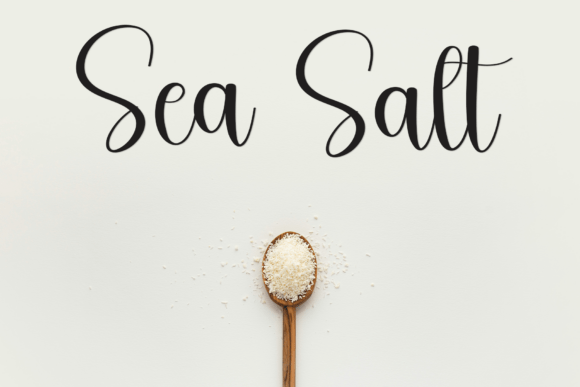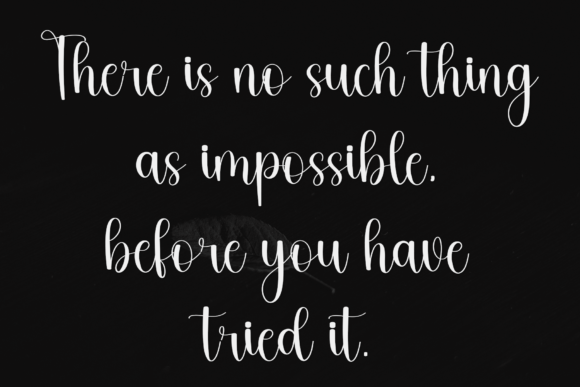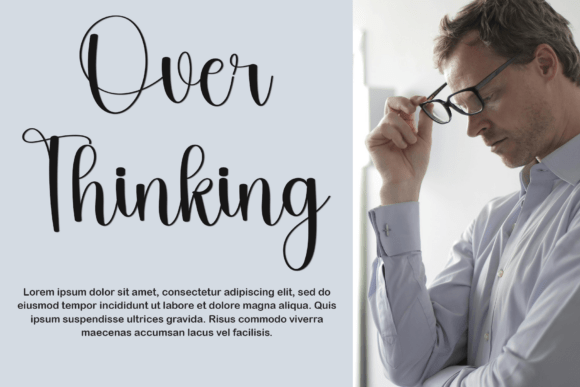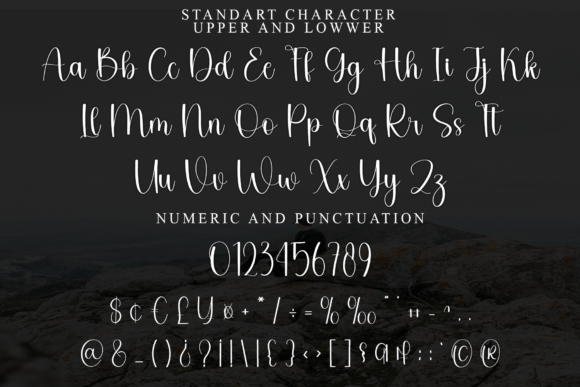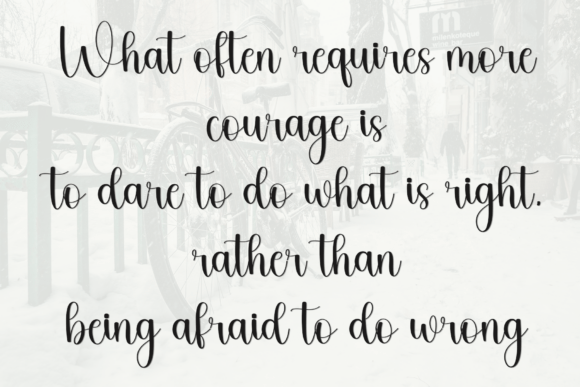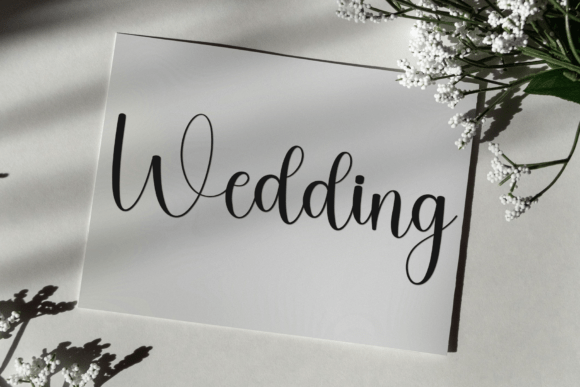
Introducing Boho Stylish Font: Elevate Your Designs with a Timeless Handwritten Touch
Are you a designer, crafty entrepreneur, or social media influencer looking for a font that can add a personal touch to your brand? Look no further than Boho Stylish Font, a lovely and timeless handwritten font that’s perfect for creating eye-catching logos, branding, and quotes. In this article, we’ll dive into the world of Boho Stylish Font and explore its unique features, benefits, and uses.
A Unique and Beautiful Touch
What sets Boho Stylish Font apart from other fonts is its distinctive and beautiful touch. Every letter has been carefully crafted to have a unique personality, making it perfect for designs that require a personal and human touch. The font’s handwritten style gives it a warm and inviting feel, making it ideal for brands that want to connect with their audience on a more personal level.
Boho Stylish Font is incredibly versatile and can be used for a wide range of design projects. Its elegant and flowing script makes it perfect for:
- Logos: Create a stunning logo that reflects your brand’s personality and values.
- Branding: Use Boho Stylish Font to add a touch of elegance and sophistication to your brand’s identity.
- Quotes: Create inspiring and motivational quotes that will resonate with your audience.
Benefits of Using Boho Stylish Font
So, why choose Boho Stylish Font for your design projects? Here are just a few benefits:
- Unique and distinctive: Boho Stylish Font is unlike any other font on the market, ensuring your designs will stand out from the crowd.
- Easy to read: Despite its elegant and flowing script, Boho Stylish Font is incredibly easy to read, making it perfect for body text and titles.
- Customizable: Boho Stylish Font can be easily customized to fit your brand’s style and personality.
- Timeless: Unlike trendy fonts that quickly go out of style, Boho Stylish Font is a timeless classic that will remain stylish for years to come.
Tips for Using Boho Stylish Font
To get the most out of Boho Stylish Font, here are a few tips:
- Use it sparingly: Boho Stylish Font is a statement font, so use it sparingly to add emphasis and create visual interest.
- Pair it with other fonts: Experiment with pairing Boho Stylish Font with other fonts to create a unique and eye-catching combination.
- Experiment with colors: Boho Stylish Font looks stunning in a range of colors, so don’t be afraid to experiment and find the perfect hue for your design.
Who is Boho Stylish Font for?
Boho Stylish Font is perfect for:
- Designers looking for a unique and stylish font to add to their collection.
- Crafty entrepreneurs who want to add a personal touch to their brand.
- Social media influencers who want to create eye-catching graphics and quotes.
- Small business owners who want to create a professional and stylish brand identity.
In conclusion, Boho Stylish Font is a timeless and elegant handwritten font that’s perfect for designers, crafty entrepreneurs, and small business owners. Its unique and beautiful touch makes it ideal for creating eye-catching logos, branding, and quotes. With its versatility, ease of use, and customizability, Boho Stylish Font is a must-have font for anyone looking to elevate their designs and add a personal touch to their brand.